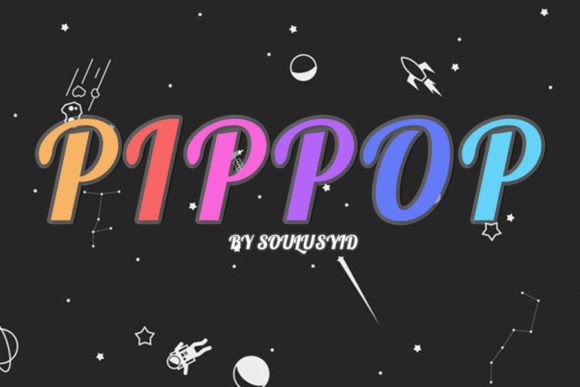
In a digital wonderland where creativity reigns supreme, there lies a font that dances with the stars - Pippop! A bold and captivating display font, Pippop is a visual masterpiece designed to sprinkle magic into your designs. Crafted by the talented SoulusYid, this font is an ode to imagination, inviting you to embrace the whimsical and make your words come alive.
Picture this: a vibrant poster adorned with Pippop's whimsical characters, each letter a tiny work of art that sparks curiosity and ignites the imagination. Whether it's a captivating flyer, an enchanting website headline, or a playful social media post, Pippop transforms ordinary words into captivating visual treats.
Designed with your creative freedom in mind, Pippop is a storytelling virtuoso. Its unique letterforms, brimming with personality, tell tales of wonder, adventure, and boundless imagination. From children's books to captivating presentations, Pippop empowers you to create designs that dance off the page and leave a lasting impression.
Step into a world of enchanting possibilities with Pippop, where your words take flight and become part of a visual symphony. Let the bold strokes and playful details captivate your audience, leaving them spellbound by your creative genius. Join the ranks of design visionaries who have discovered the magic of Pippop and let your imagination soar.